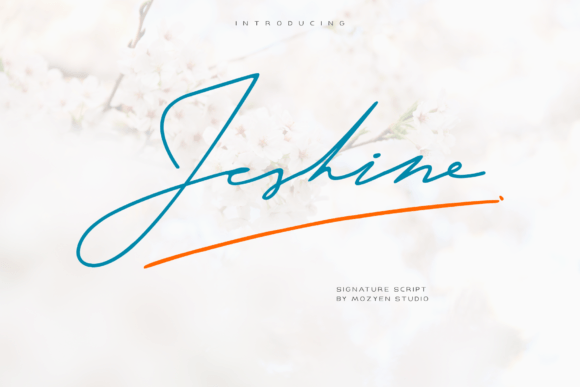
Welcome to the realm of Jeshine Font, a captivating handwritten font family that exudes elegance, modernity, and a touch of femininity. Immerse yourself in its beauty and discover a world of creative possibilities.
With its graceful strokes and contemporary flair, Jeshine Font effortlessly elevates your designs, leaving a lasting impression. From branding and packaging to cosmetics and photography, this font adds a touch of sophistication and charm to any project. Whether it's an invitation design that invites elegance or a trademark that exudes professionalism, Jeshine Font is your perfect companion.
Unleash your creativity and explore the boundless applications of Jeshine Font. Its versatility knows no bounds, adapting seamlessly to a myriad of design styles and themes. Let your imagination soar as you craft stunning logos, eye-catching posters, and enchanting social media graphics.
But it's not just about aesthetics; Jeshine Font is a font of practicality too. PUA encoded, it grants you effortless access to a treasure trove of glyphs and swashes. Experiment with different combinations and create designs that truly stand out.
Join the growing community of designers, artists, and entrepreneurs who have embraced the allure of Jeshine Font. Experience the joy of creating designs that captivate and inspire, leaving an indelible mark on your audience.